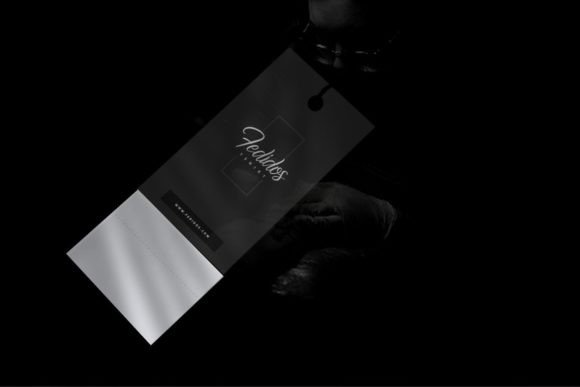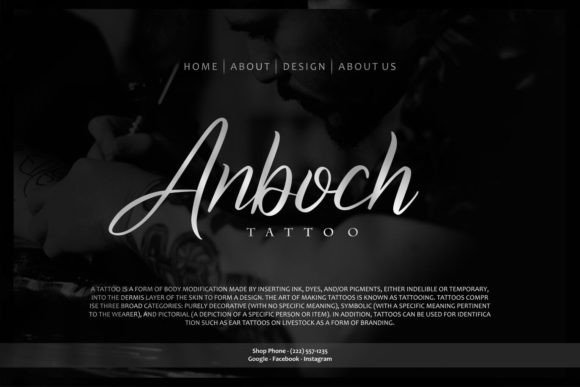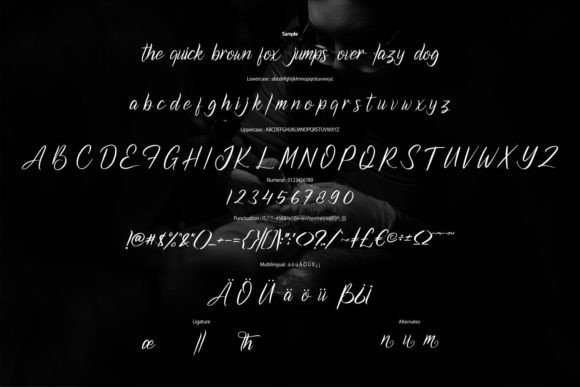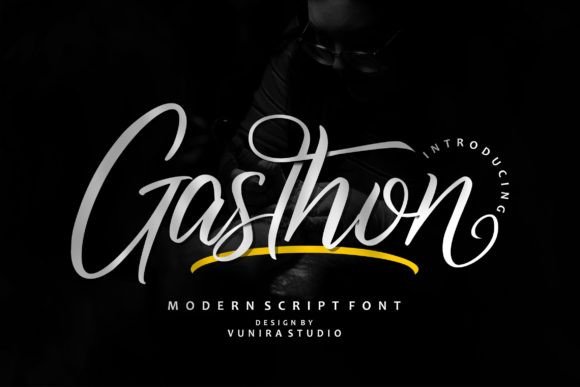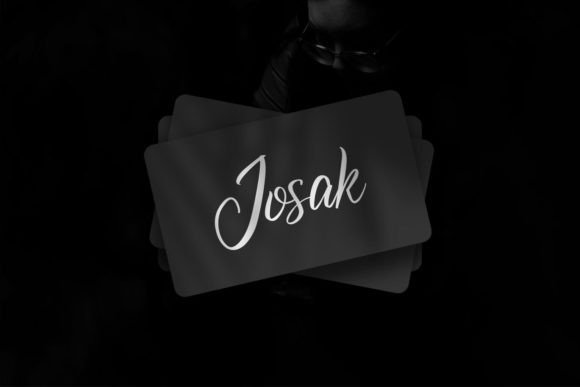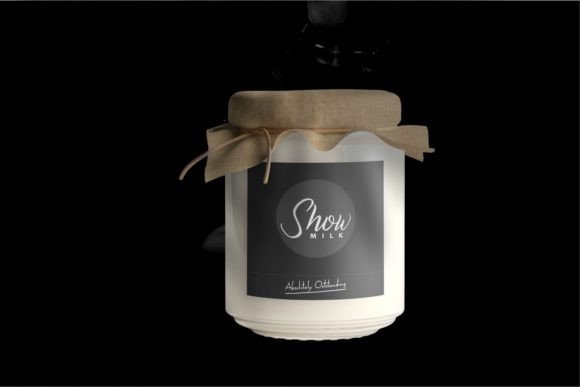
Introducing Gasthon Font: Elevate Your Designs with Modern Sophistication
In the world of typography, fonts play a crucial role in conveying the tone and personality of a design. For designers and crafters looking to add a touch of elegance and modernity to their projects, Gasthon Font is an excellent choice. This stylish modern script font seamlessly blends sophistication with a contemporary vibe, making it perfect for a wide range of creative applications.
The Characteristics of Gasthon Font
Gasthon Font is characterized by its flowing, connected strokes that bring a sense of fluidity and movement to any design. Its sleek and trendy script makes it an ideal choice for designers looking to add a modern and dynamic flair to their work. Whether you’re creating invitations, branding materials, or various creative projects, Gasthon Font is versatile and easy to use, ensuring that your text looks polished and engaging.
Key Features of Gasthon Font
- Modern Script Style: Gasthon Font boasts a modern script style that is both stylish and sophisticated.
- Flowing Connected Strokes: The font’s flowing, connected strokes add a touch of elegance and fluidity to any design.
- Versatile and Easy to Use: Gasthon Font is versatile and easy to use, making it perfect for a wide range of creative projects.
- Perfect for Invitations and Branding: The font is ideal for creating invitations, branding materials, and other creative projects that require a modern and dynamic flair.
Benefits of Using Gasthon Font
Using Gasthon Font in your designs offers several benefits. Firstly, it allows you to add a touch of sophistication and elegance to your work, making it perfect for high-end branding and luxury invitations. Secondly, the font’s modern script style ensures that your designs look contemporary and trendy. Finally, Gasthon Font’s versatility and ease of use make it an excellent choice for designers of all skill levels.
Tips for Using Gasthon Font Effectively
To get the most out of Gasthon Font, here are a few tips to keep in mind:
- Use it as a Headline Font: Gasthon Font is perfect for use as a headline font, adding a touch of elegance and sophistication to your titles and headings.
- Pair it with a Sans-Serif Font: Pairing Gasthon Font with a sans-serif font creates a beautiful contrast that adds visual interest to your designs.
- Experiment with Different Colors: Gasthon Font looks great in a variety of colors, so don’t be afraid to experiment and find the perfect hue for your design.
Who Can Benefit from Gasthon Font?
Gasthon Font is an excellent choice for a wide range of designers and crafters, including:
- Graphic Designers: Graphic designers can use Gasthon Font to add a touch of sophistication and elegance to their branding and advertising designs.
- Stationery Designers: Stationery designers can use Gasthon Font to create beautiful and elegant invitations, greeting cards, and other paper products.
- Web Designers: Web designers can use Gasthon Font to add a touch of modernity and sophistication to their website designs.
In conclusion, Gasthon Font is a stylish modern script font that effortlessly combines sophistication with a contemporary vibe. Its flowing, connected strokes and sleek script make it perfect for adding a modern and dynamic flair to invitations, branding, and various creative projects. With its versatility, ease of use, and range of applications, Gasthon Font is an excellent choice for designers and crafters looking to elevate their designs.
Whether you’re a seasoned designer or just starting out, Gasthon Font is a great addition to your font library. So why not give it a try and see how it can enhance your designs?